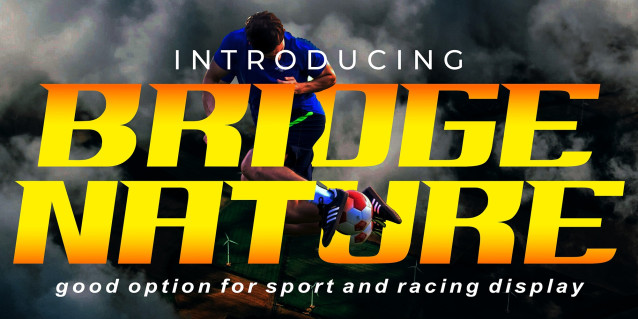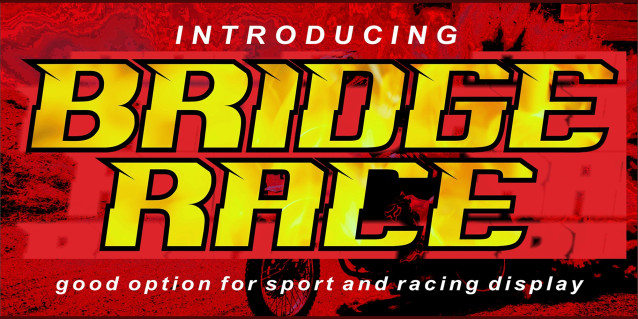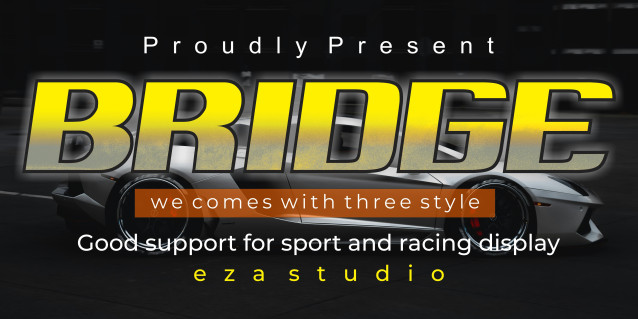
Bridger Font
Bridger Font – This font has three bold variations, with sharp corners, spurs, and slants for a dynamic effect. The font “BRIDGER” has a unique appeal and is easy to read visually, making it perfect for news headlines, whether for sports events, automotive posters, logos, or monogram designs.